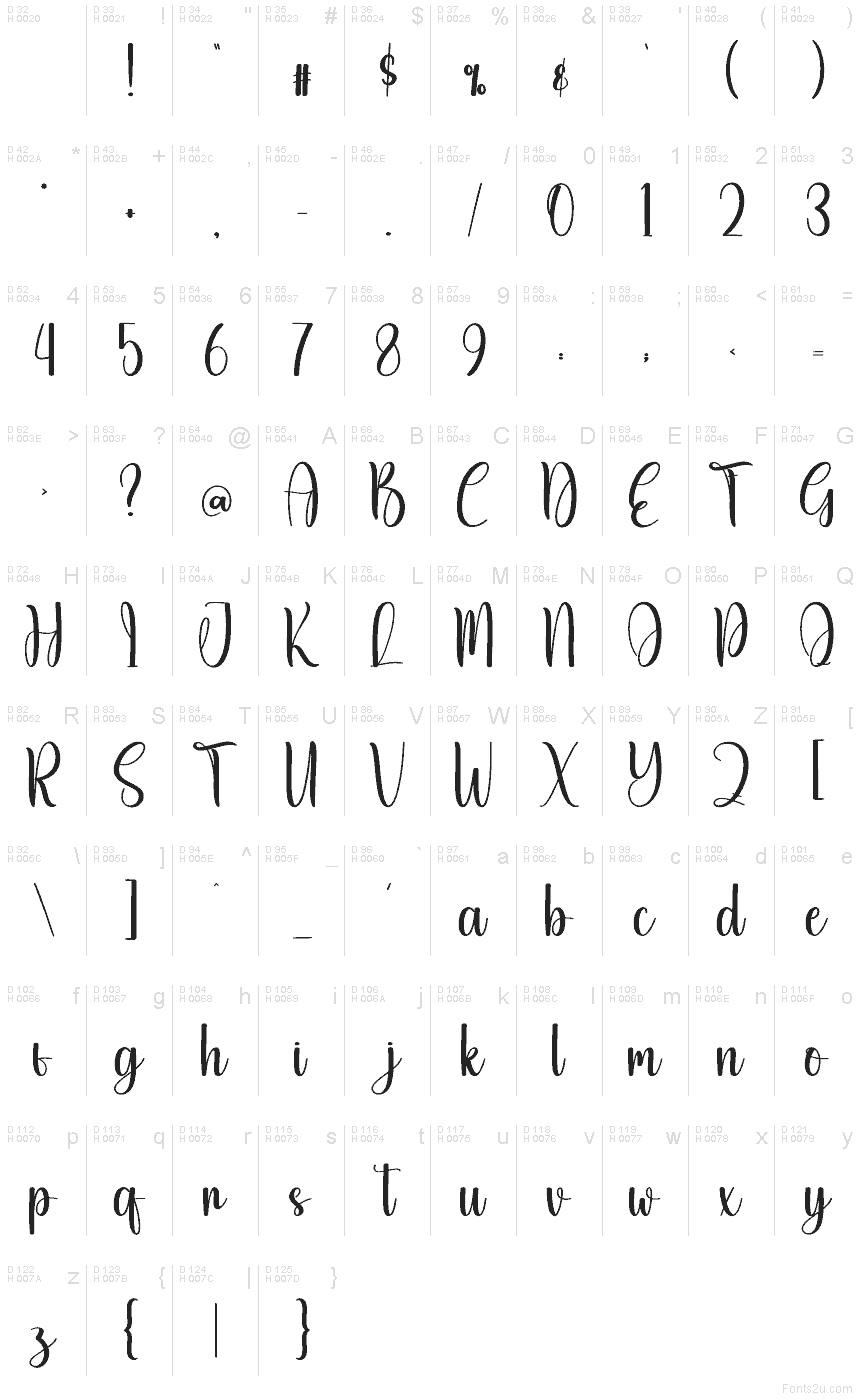
Deary February
Deary February font is a casual, elegant script font by Scratchones with a handwritten quality and versatile modern aesthetic. Consistently aligned letters blend perfectly for informal views where transparency of intentions is crucial. With an expressive flair, this font glows under the spotlight in any project that puts it to use.
Use Deary February across logos, apparel designs, wedding decorations/cards/invitations, posters and flyers. Natural-looking signatures on stationery items are welcomed as well in addition to food and beverage labels. And if you’re artistically motivated enough today, bring every branding initiative closer to your heart since it’s such an easy-to-read free font.